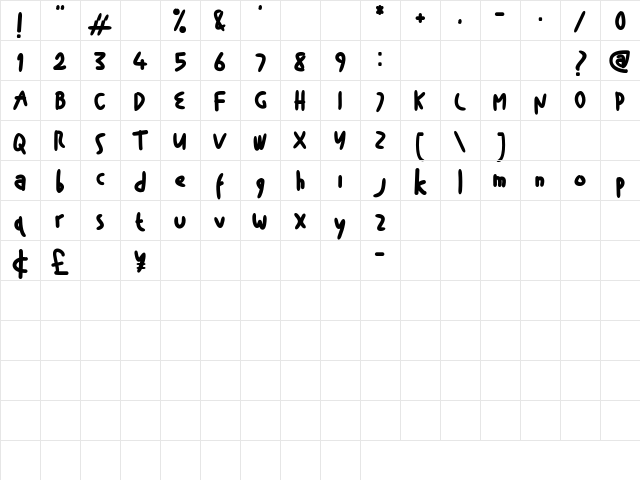
Complete Haylow Marker Regular glyph index. Displaying only characters natively supported by Haylow Marker Regular font.
Haylow Marker is a composed and adaptable typeface that performs quietly and consistently across a wide range of design contexts.